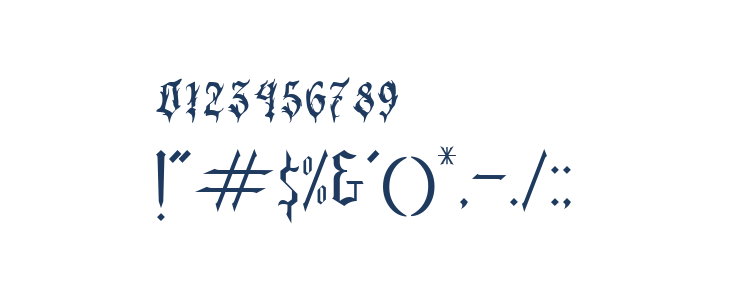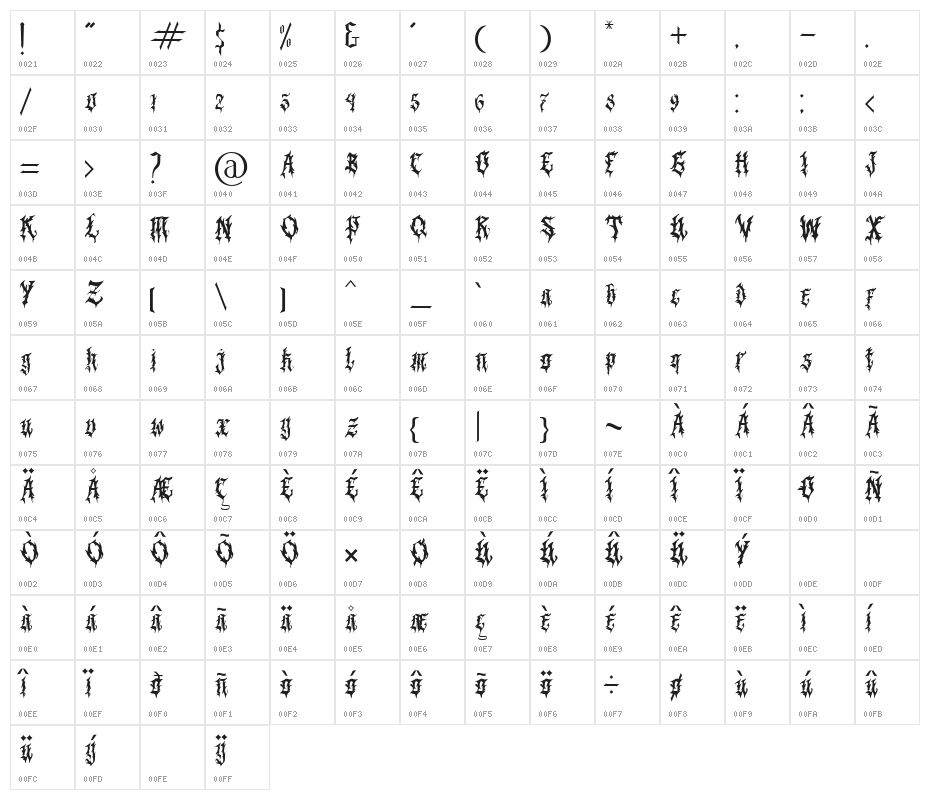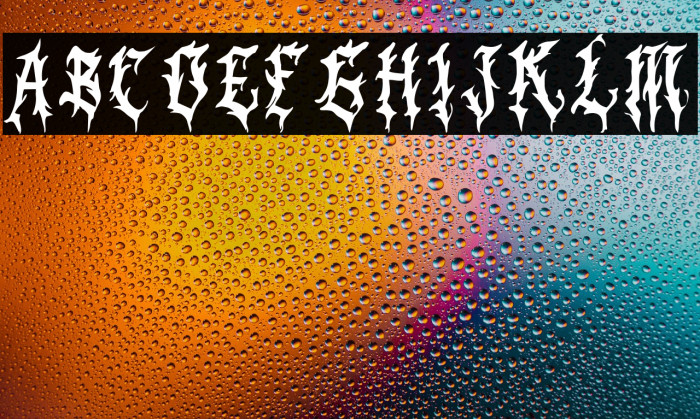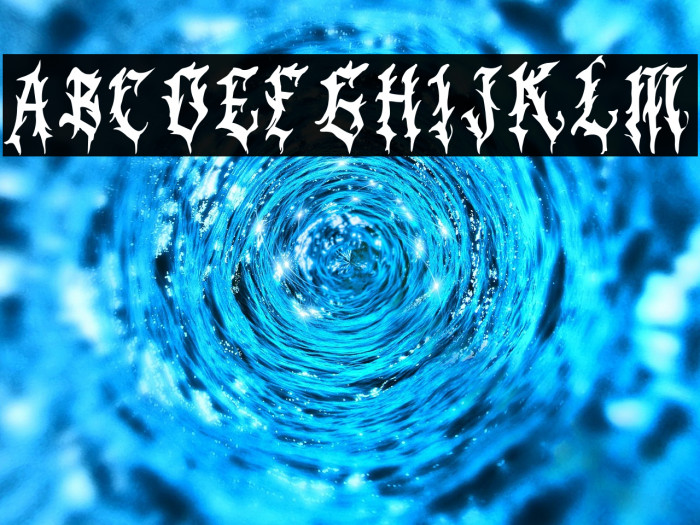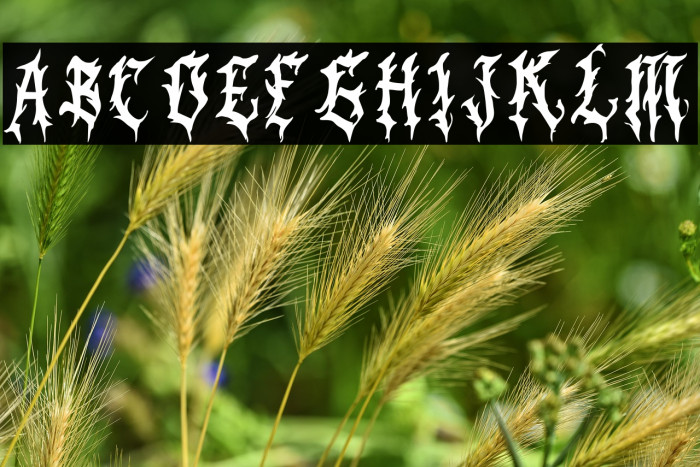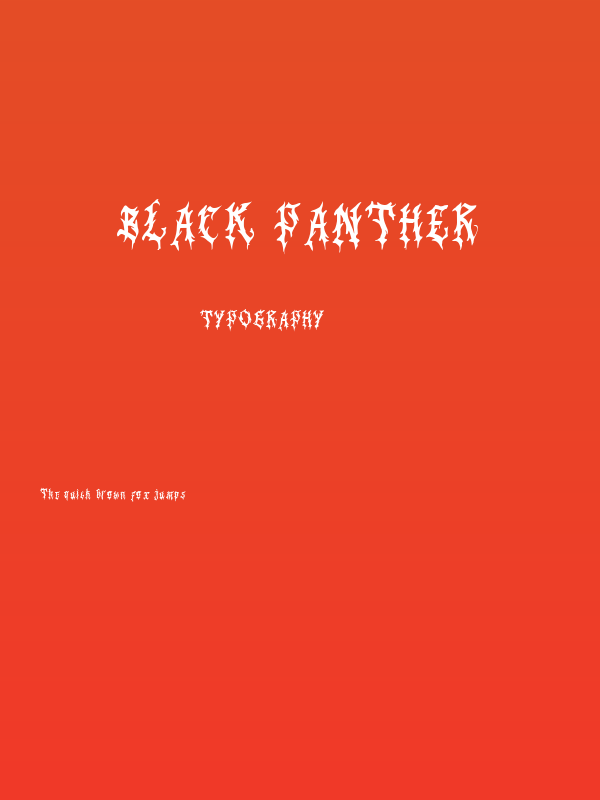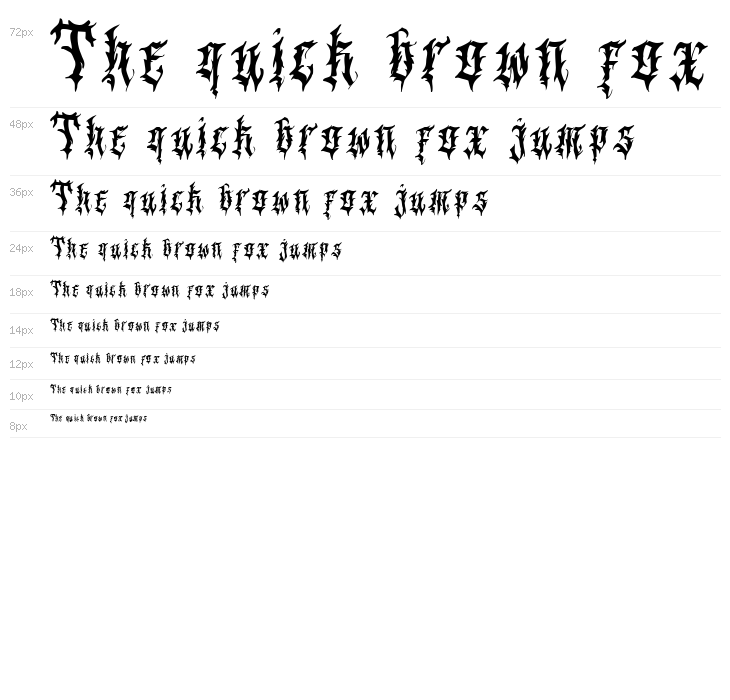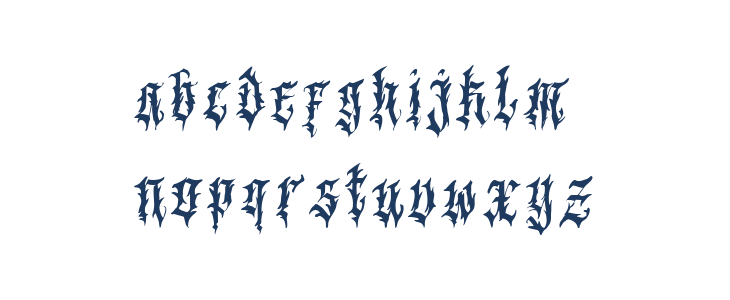
Black Panther Font
Black Panther Description
This font features a bold and aggressive design with sharp, angular edges and a gothic-inspired aesthetic. The characters are intricately detailed, resembling thorny vines or claws, giving it a fierce and dynamic appearance. The uppercase and lowercase letters maintain a consistent style, with each character displaying unique, jagged elements that enhance its dramatic flair. Numbers and special characters follow the same design principles, ensuring a cohesive look across all glyphs. This font is ideal for projects that require a strong, impactful visual presence.
| Proposed Projects | Ideal for album covers, movie posters, video game titles, and branding for edgy or alternative products. |